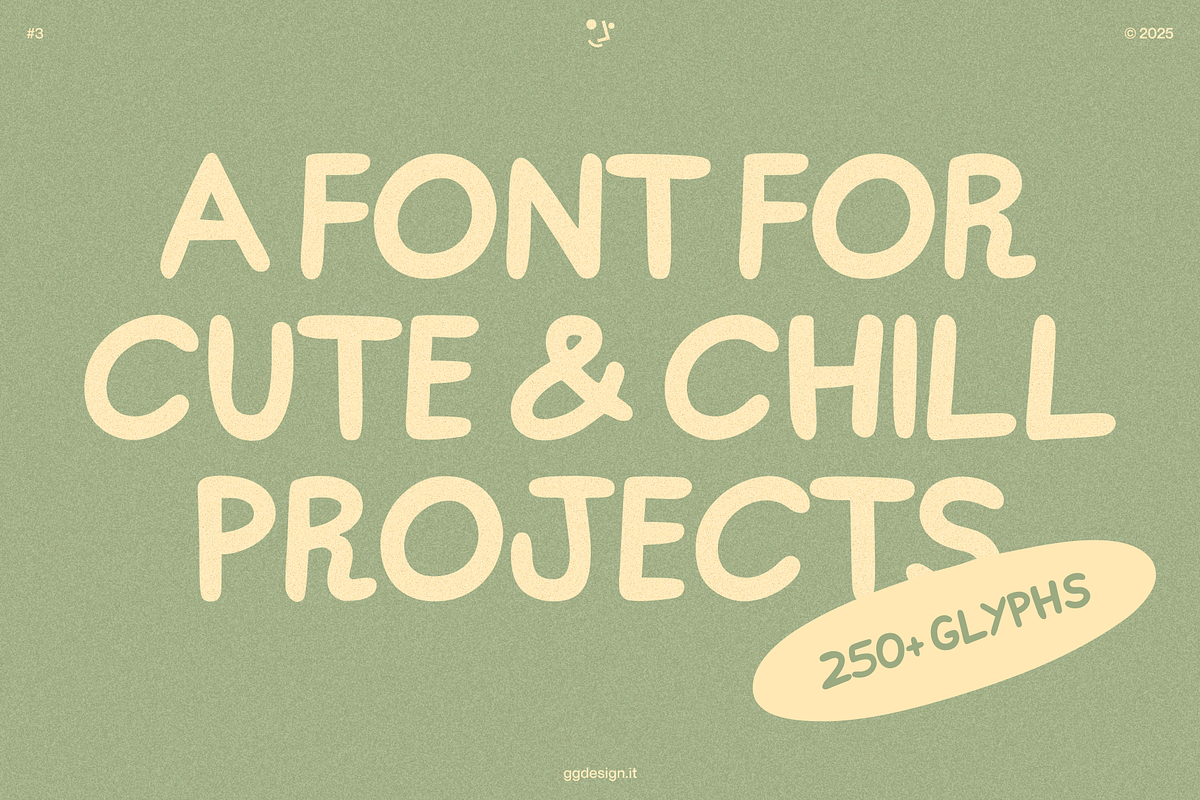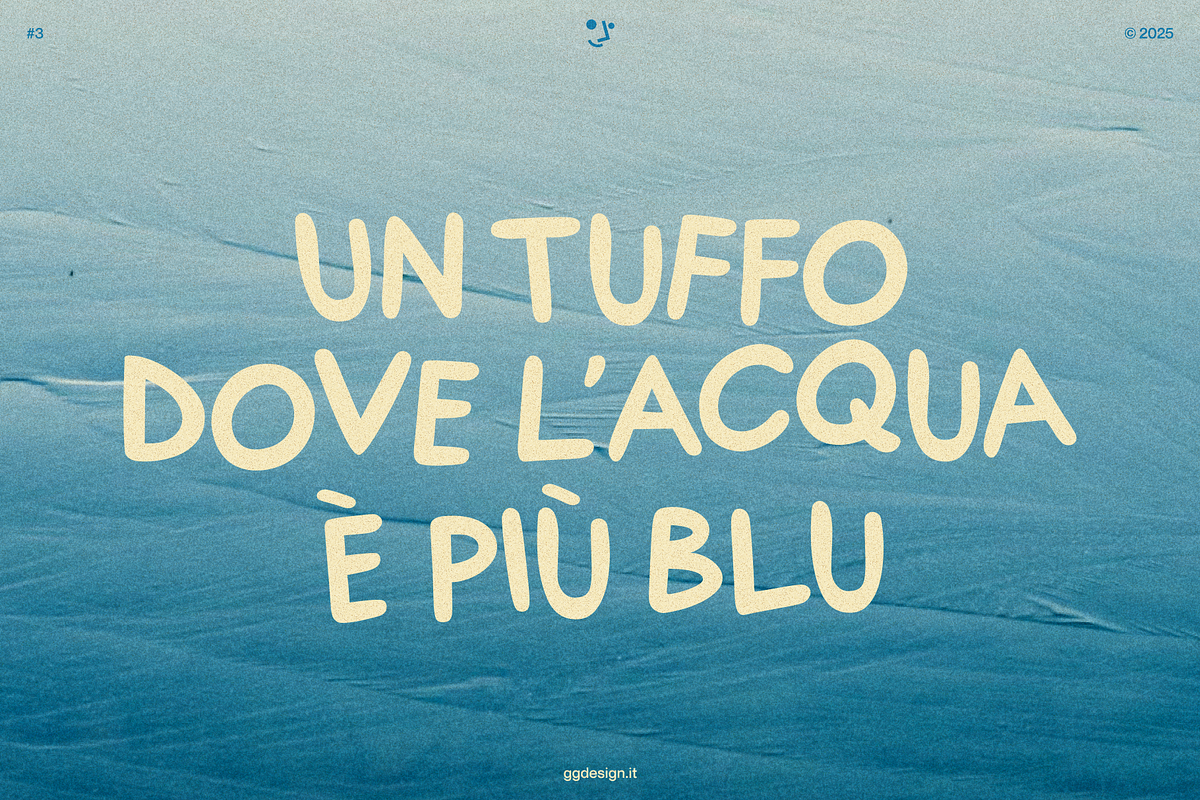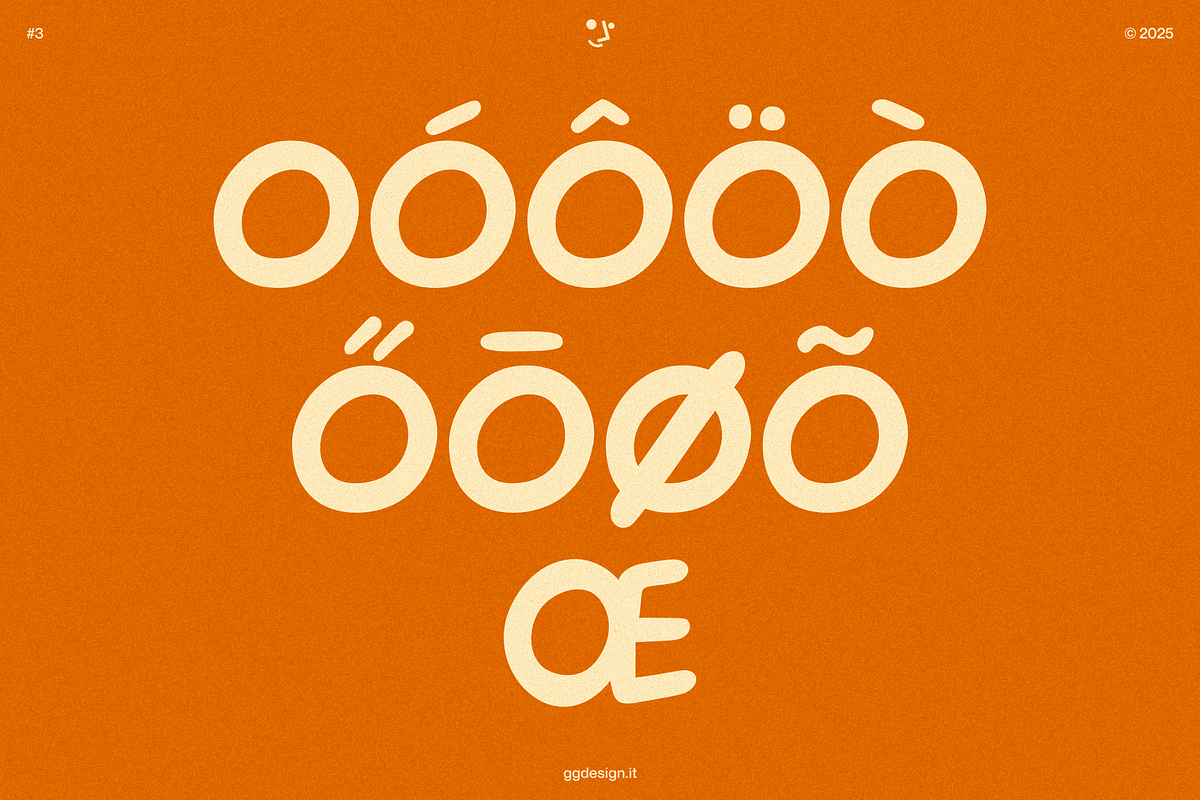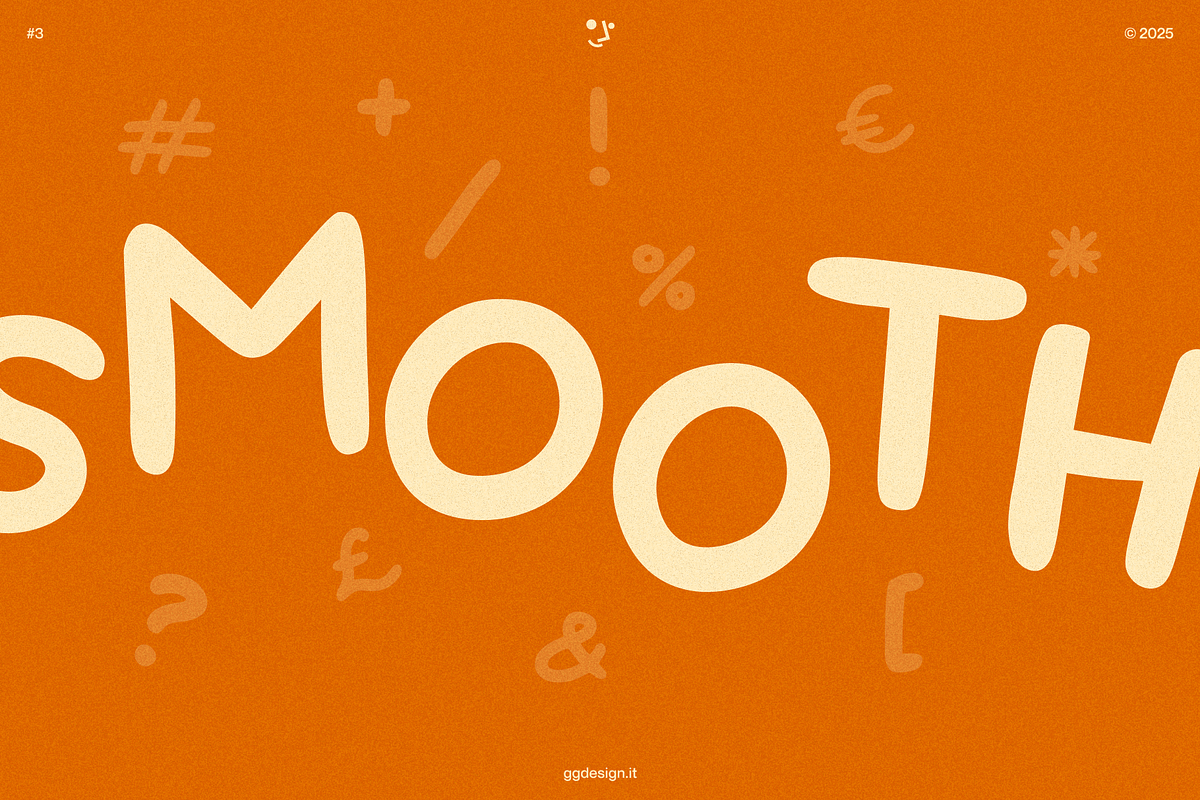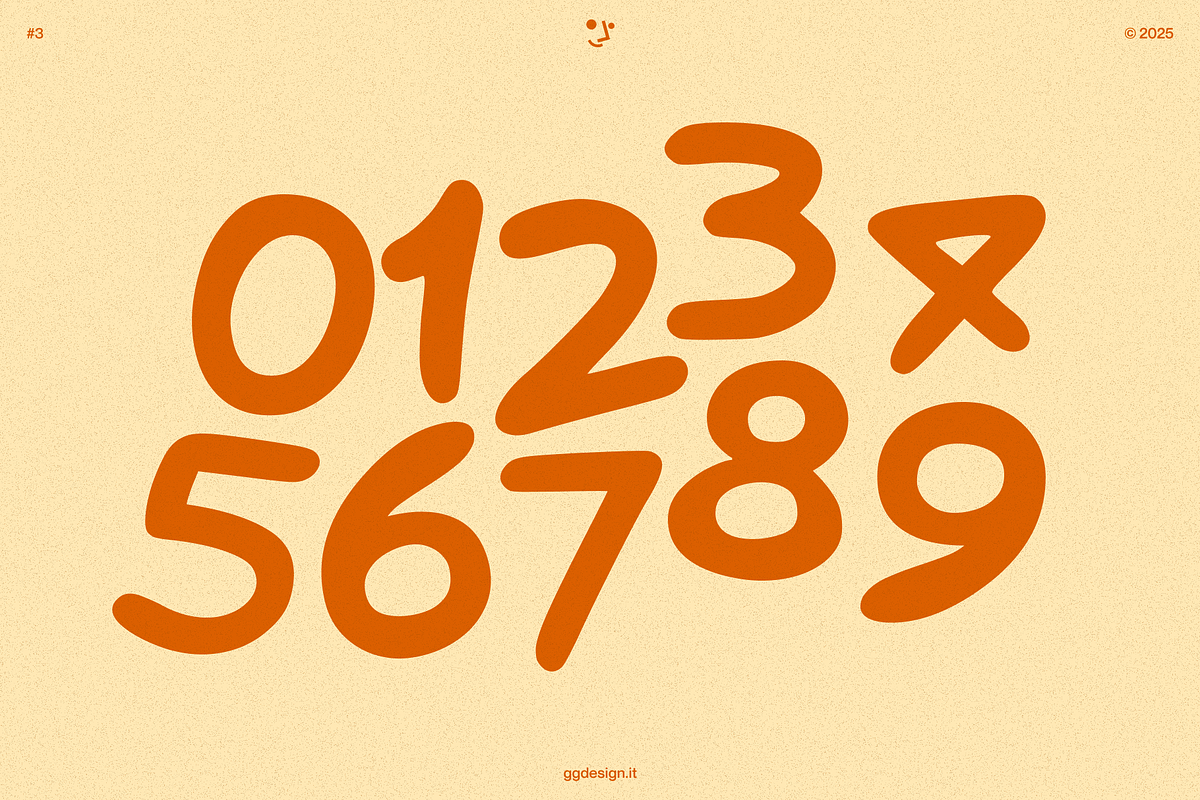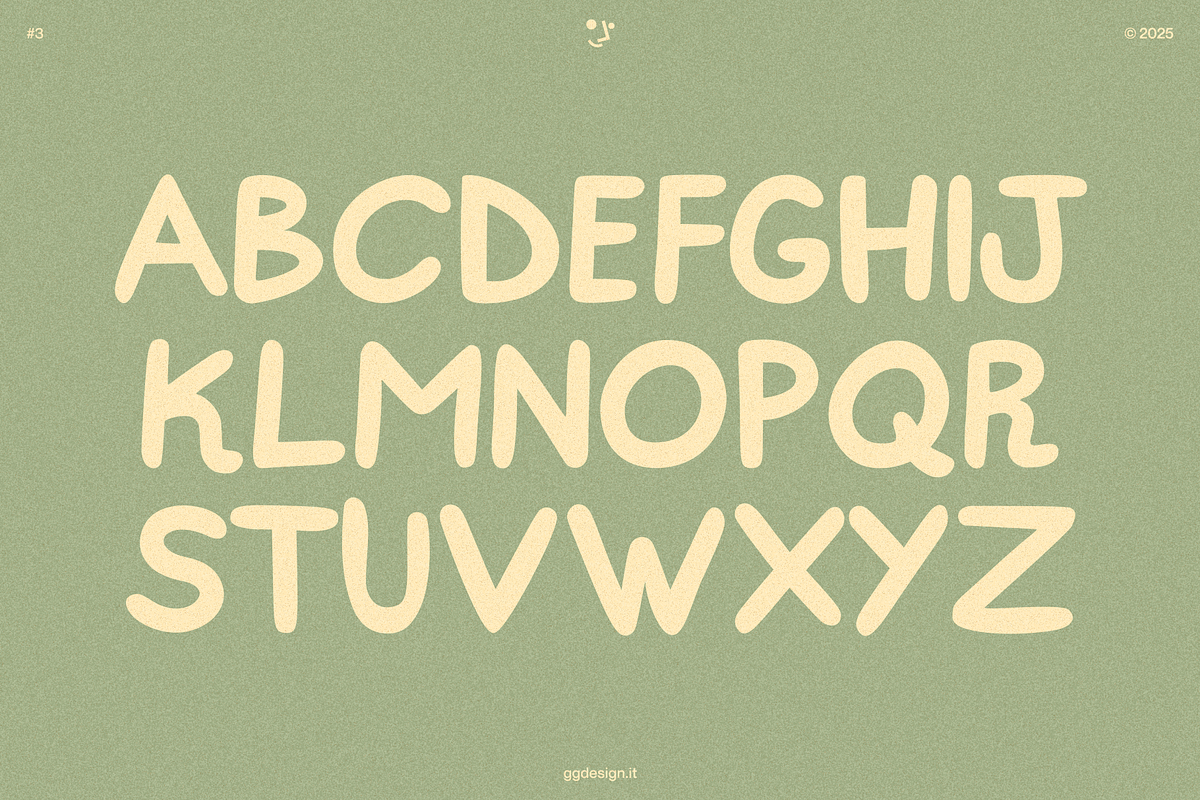
Otch – Handwritten Sans Serif
Otch is a handwritten sans-serif font designed to bring a touch of playfulness and personality to your next project. Each glyph was originally drawn in Fresco, then carefully traced and refined to enhance legibility. The typeface includes over 250 glyphs and supports major Western European languages.
Language Support: Spanish, English, Portuguese, German, French, Turkish, Italian, Indonesian, Polish, Tagalog, Romanian, Azeri, Dutch, Serbian, Hungarian, Zulu, Czech, Swedish, Albanian, Croatian, Danish, Slovak, Finnish, Guarani, Norwegian, Catalan, Lithuanian, Slovenian, Zazaki, Latvian, Estonian, Welsh, Maltese, West Frisian, Icelandic, Aromanian, Breton, Gagauz, Tlapanec, Scottish Gaelic, Marshallese, Walser German, Esperanto, Latin.